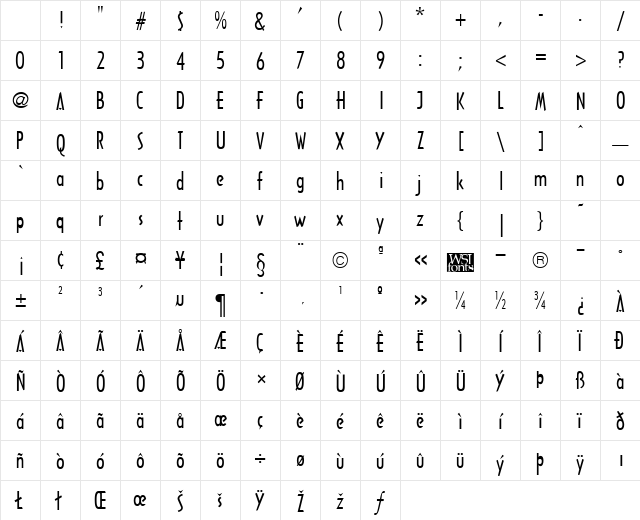
Arcane Regular Free Font
Arcane Regular
Arcane Family
Design Context for Arcane
Arcane is a composed and adaptable typeface that performs quietly and consistently across a wide range of design contexts.